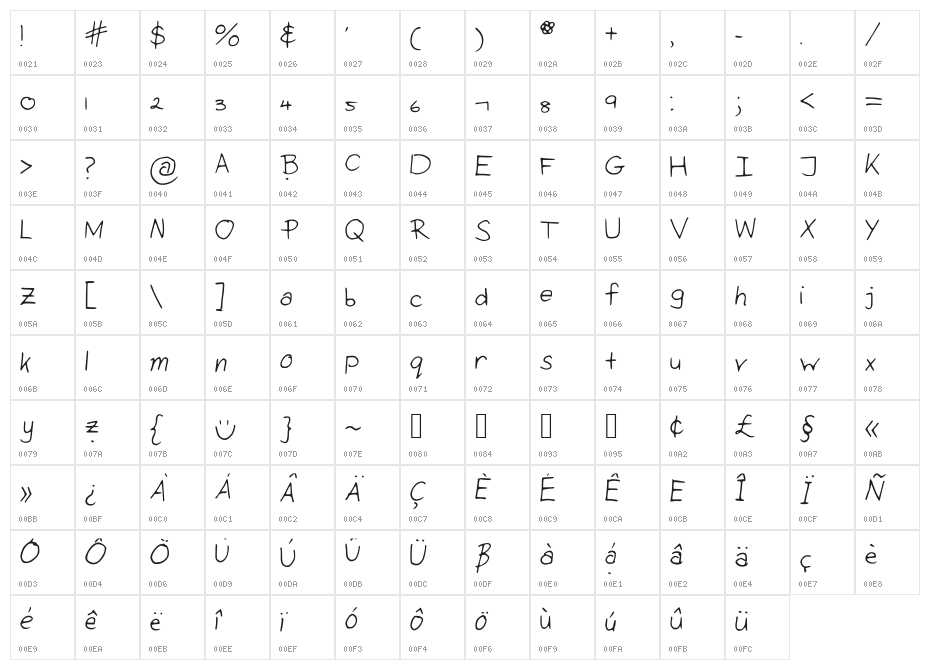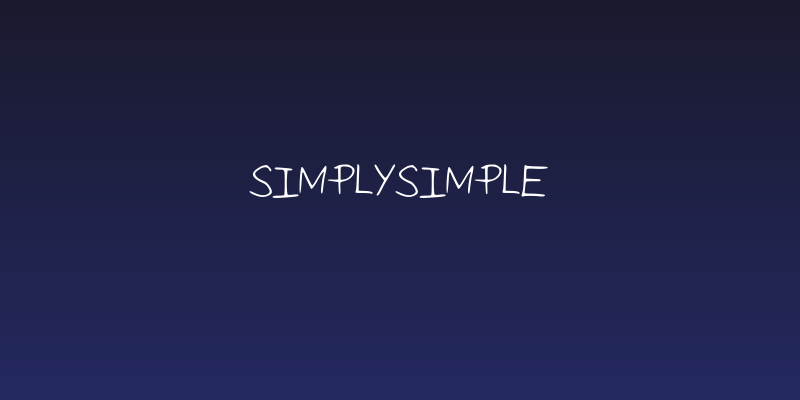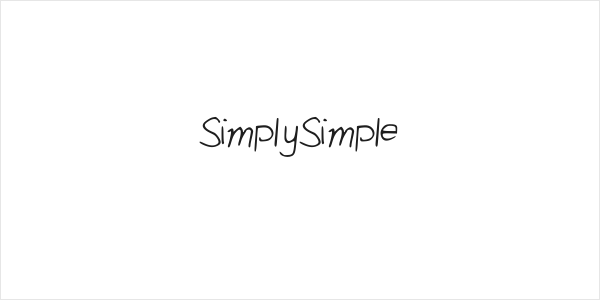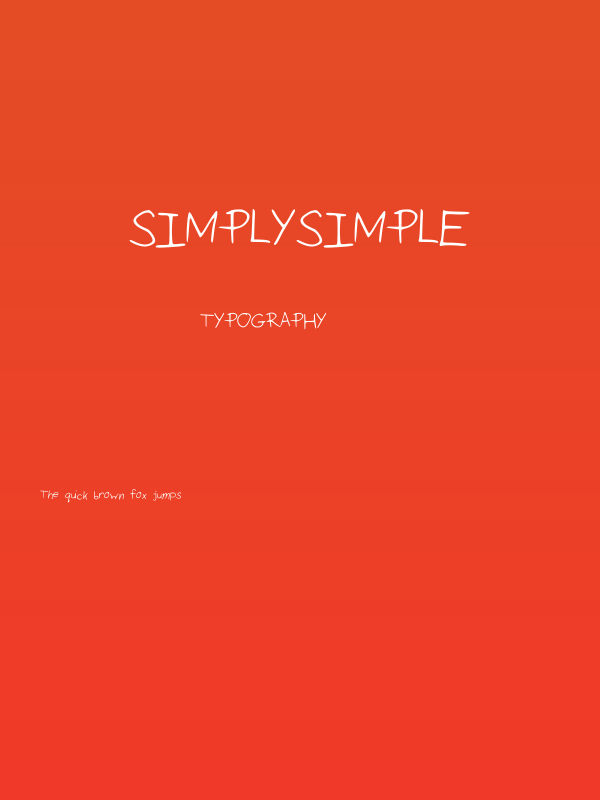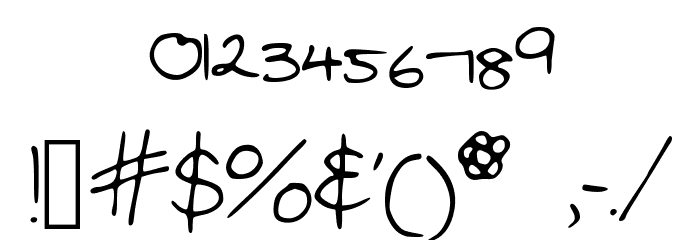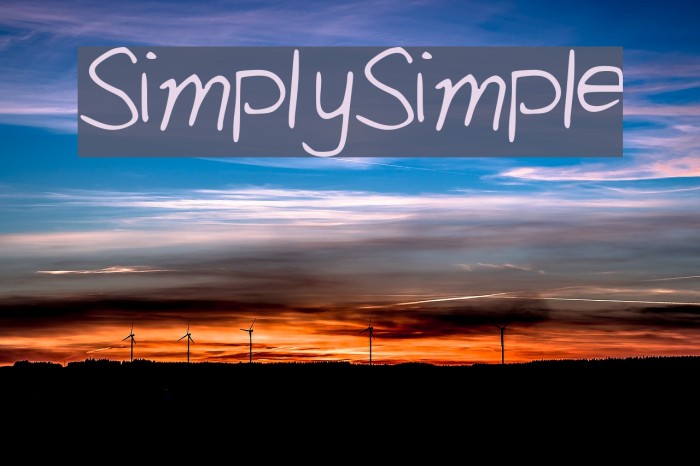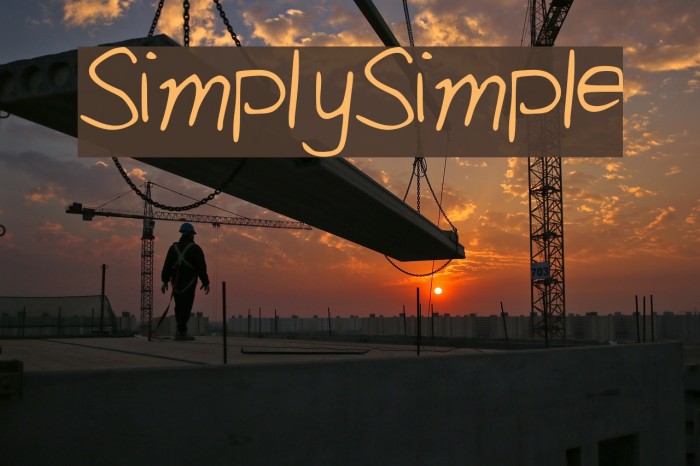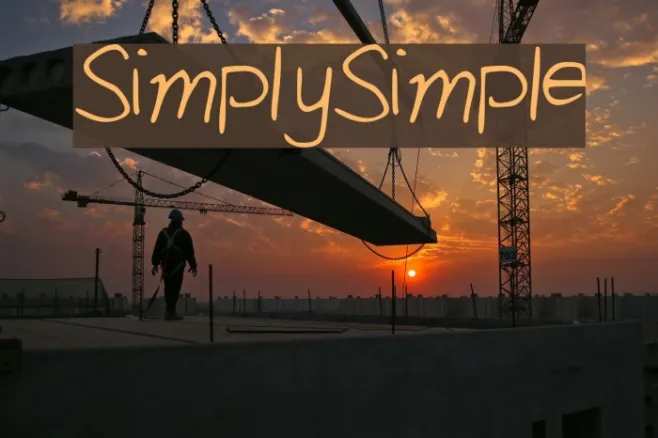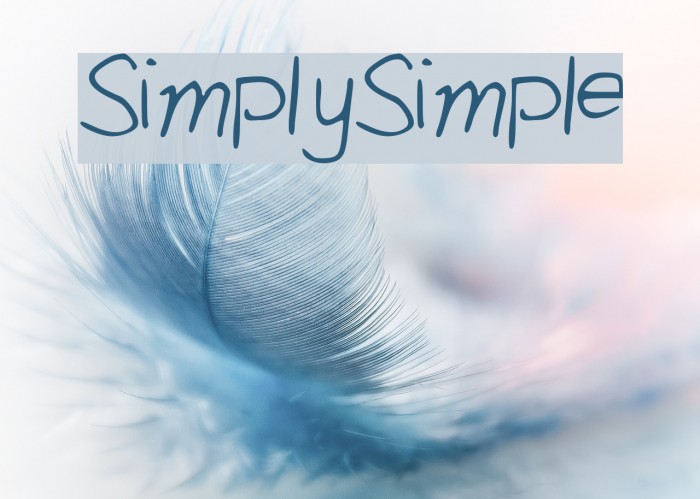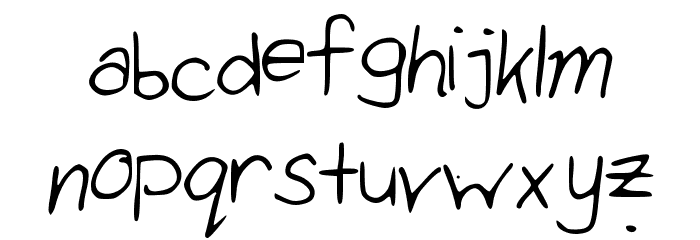
SimplySimple Font
SimplySimple Description
This playful and whimsical font features a handwritten style with a casual and friendly appearance. The letters are slightly irregular, giving it a personal touch that mimics natural handwriting. The strokes are smooth and rounded, with a consistent thickness that adds to its approachable feel. The uppercase and lowercase letters maintain a cohesive look, while the numerals and special characters complement the overall design. This font is ideal for projects that require a personal or informal tone, such as greeting cards, children's books, or creative branding.
| Proposed Projects | Ideal for greeting cards, children's books, creative branding, and informal invitations. |